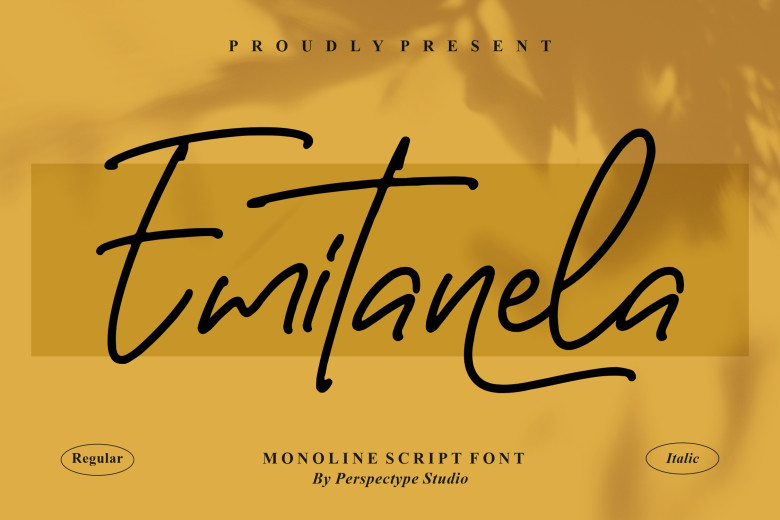
Emitanela Font
Emitanela is monoline, script font, and has an elegant handwritten feel good. It contains many curves, swash, lines, and many more. The balance it makes is perfectly beautiful in every word.
Emitanela Monoline Script Font